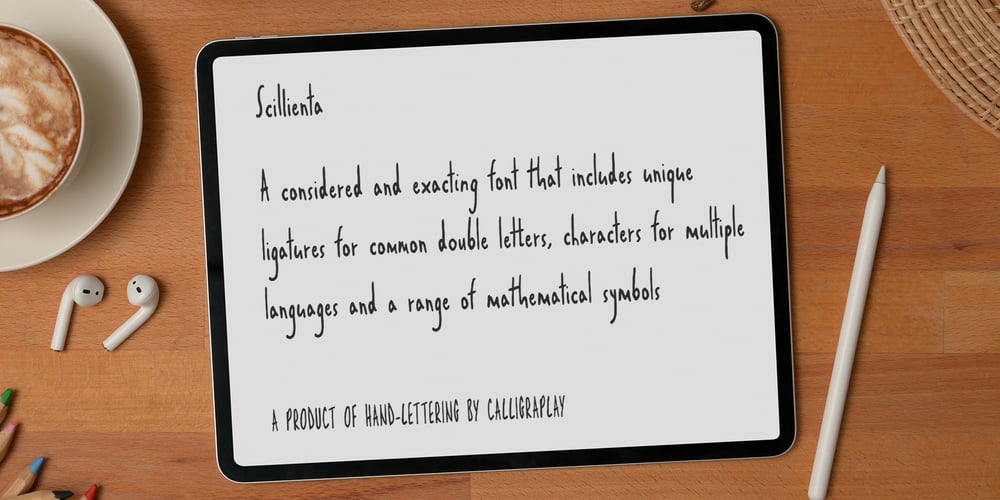
Scillienta Font Family was designed by Sarah-Jane Loveday and published by Calligraplay. Scillienta contains 1 styles and family package options. Scillienta is a considered and exacting handwriting font that includes unique ligatures, characters for multiple languages, and a range of mathematical symbols.Inspired by the condensed, small, skinny handwriting traits I have consistently seen in scientists’ handwriting, it exemplifies the effort of trying to write neatly when appearance is not the first priority. Scillienta is well-suited to handwritten notes and labels, school work and professional scribbles. It also works well as handwriting on electronic devices such as iPads and other cases in which handwriting might appear less fluid than usual.Scillienta includes 287 glyphs and 17 ligatures to ensure that common double- and triple-letter combinations retain the true-to-life inconsistencies of real handwriting.